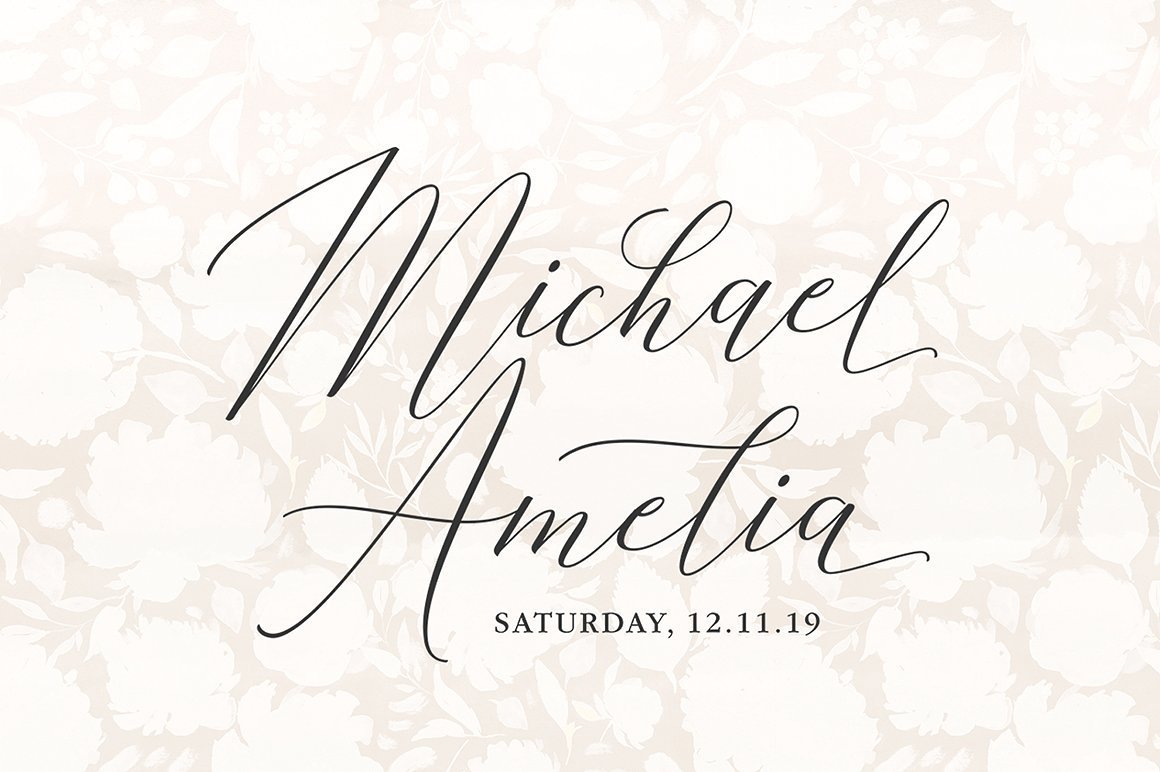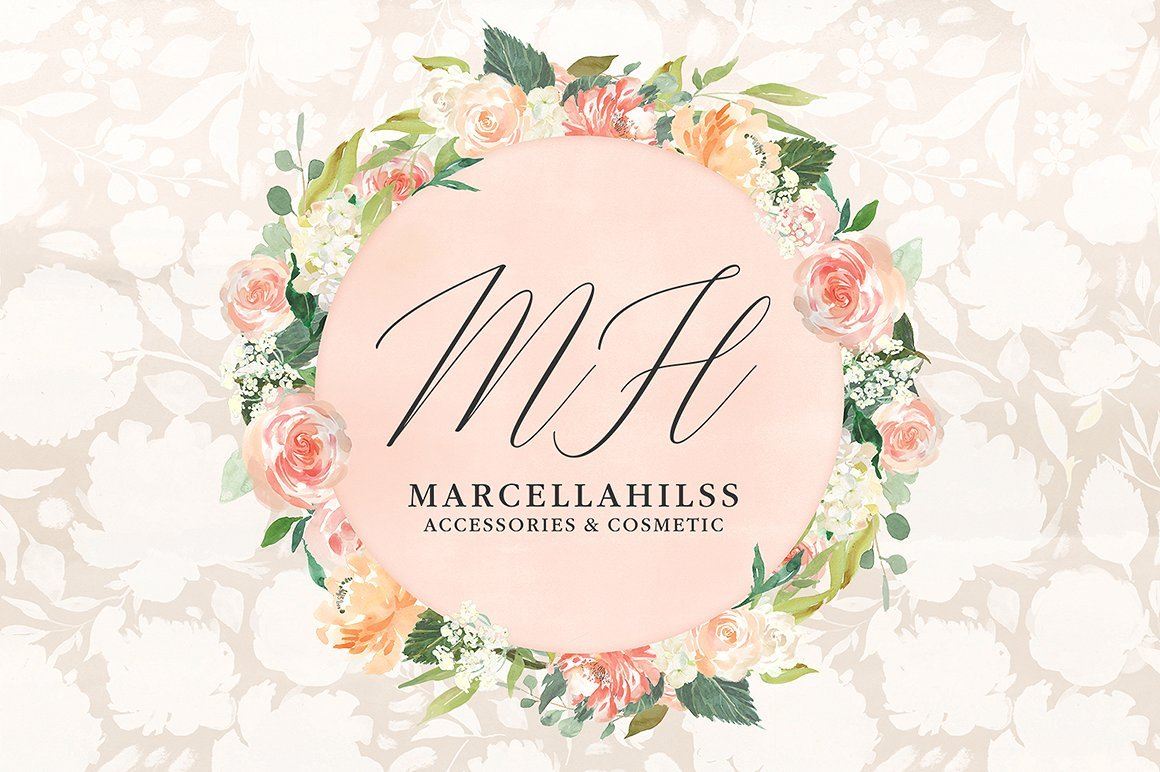
About Sarisha Script
Introducing Sarisha Script! A new modern calligraphy font that features a varying baseline, smooth line, classic and elegant touch. Sarisha Script features 420+ glyphs and 256 alternate characters. It comes with a handy set of opentype stylistic, use the beautiful ligatures, alternates and swashes. You need a program that supports OpenType features such as Adobe Illustrator CS, Adobe Photoshop CC, Adobe Indesign, Microsoft Word 2010. It is perfect for logo, greetings, branding, quotes, prints, invitations and crafting. All lowercase letters include alternates, beginning & end swashes, that makes the font look fabulous! Included in the pack: Sarisha Script (OTF/ TTF) View all glyphs: https://www.dropbox.com/s/cz0djylgzpjxij1/Glyphs_Sarisha%20Script.jpg?dl=0 These are all coded with PUA Unicode. Mac users can use Font Book and Windows users can use Character Map to view and copy any of the extra characters to paste into your favourite text editor/app. If you have any questions or problems, please don’t hesitate to message me.